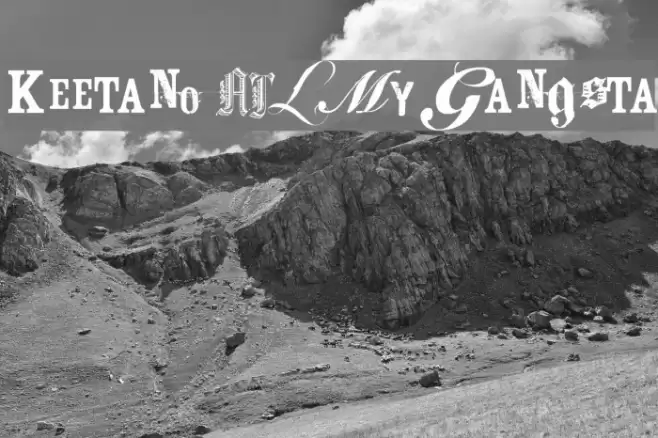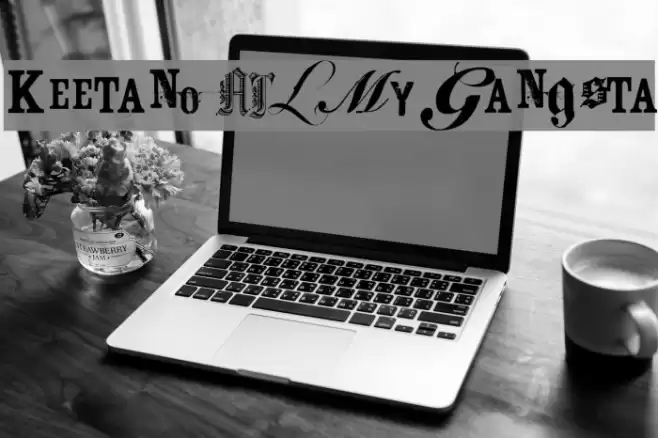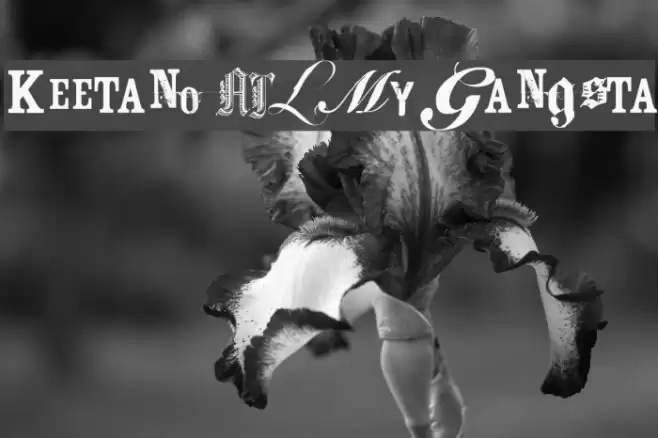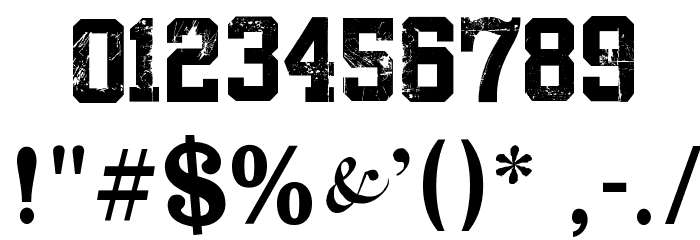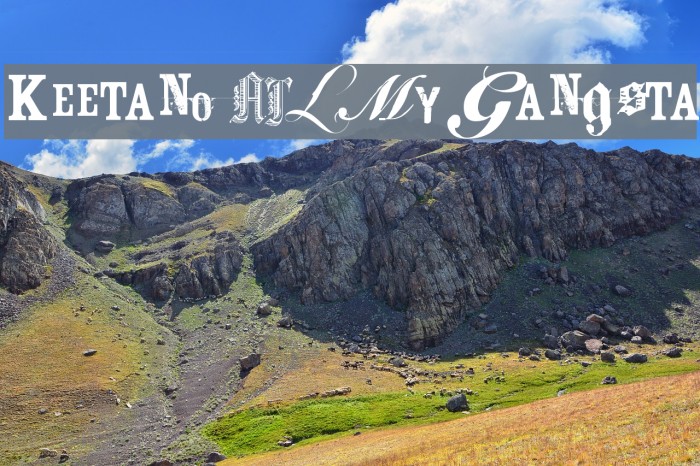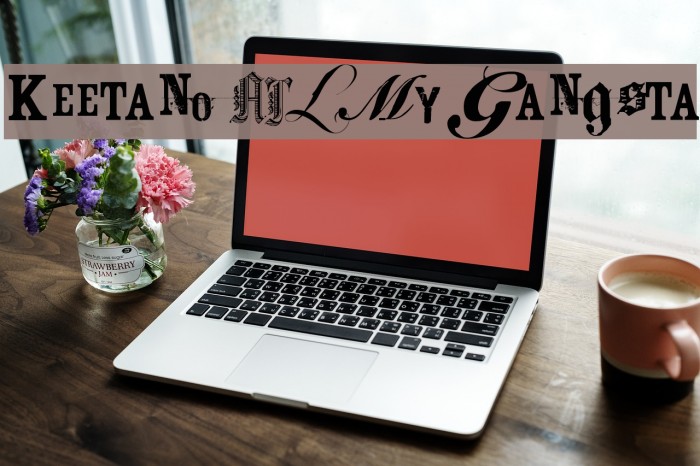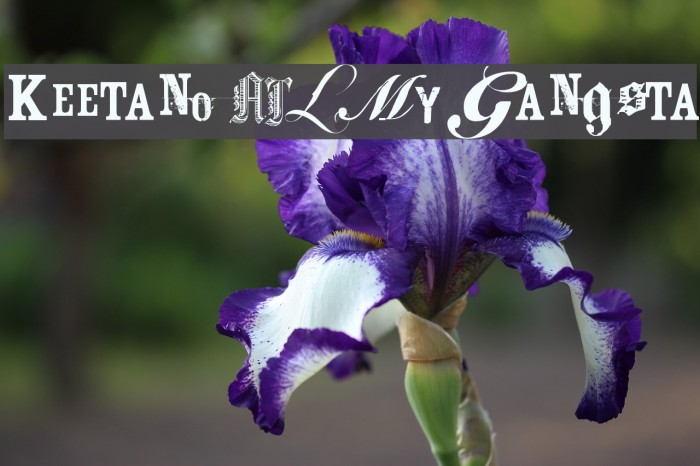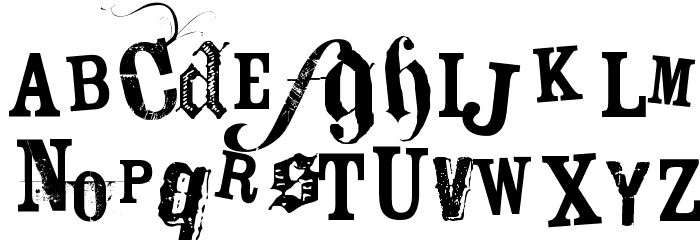
Keetano ATL My Gangsta Font
Keetano ATL My Gangsta Description
This font is a bold and expressive display typeface that combines elements of gothic and script styles. It features intricate detailing and flourishes, giving it a dramatic and ornate appearance. The uppercase letters are particularly elaborate, with some characters incorporating sharp angles and others featuring sweeping curves. The lowercase letters maintain a consistent style, though they are slightly less embellished. Numbers and special characters follow the same decorative theme, adding to the font's cohesive look. This typeface is ideal for projects that require a strong visual impact and a touch of vintage flair.
A bold, decorative font with gothic and script influences, featuring intricate detailing from Crazy fonts.
- Proposed Projects: Ideal for tattoo designs, band posters, album covers, and vintage-themed branding.
- Overall Style: Vintage
- Use Case: Logos, Posters, Headlines